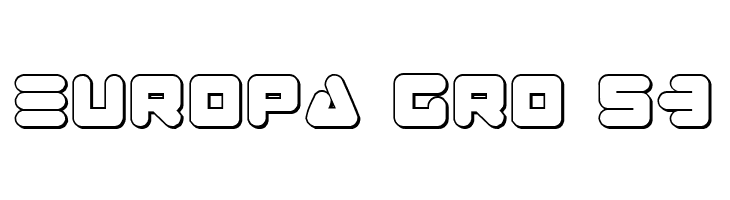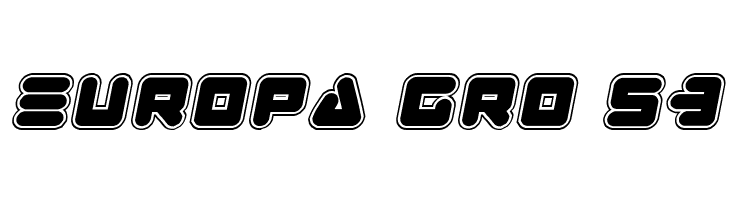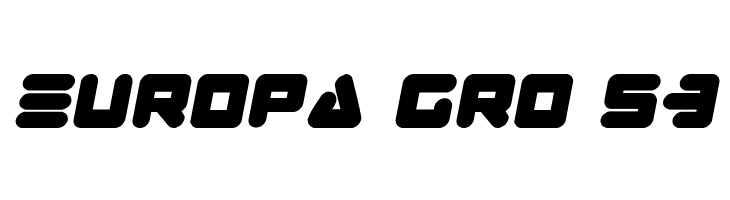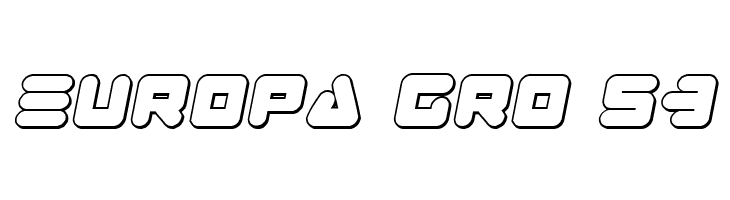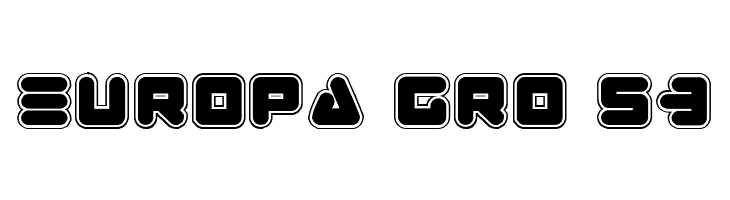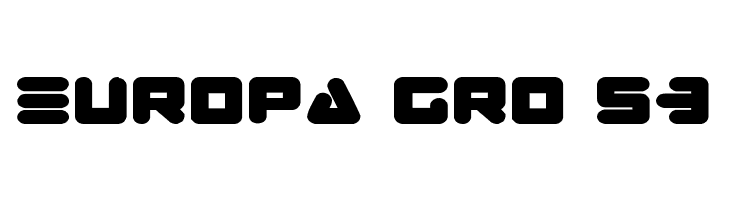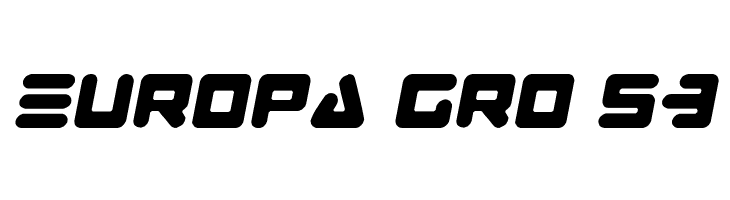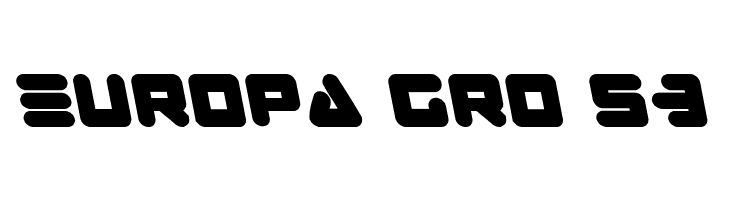
Zealot Font
Font by Daniel Zadorozny - www.iconian.com
A bold, futuristic font with geometric shapes and rounded edges.
Zealot Italic Font
Font by Daniel Zadorozny - www.iconian.com
A bold, rounded, and italicized font with a futuristic and dynamic style.
Zealot Light Font
Font by Daniel Zadorozny - www.iconian.com
A bold, futuristic font with geometric shapes and sharp angles.
Zealot College Italic Font
Font by Daniel Zadorozny - www.iconian.com
A bold, geometric font with a three-dimensional outlined style.
Zealot Expanded Font
Font by Daniel Zadorozny - www.iconian.com
A bold, geometric font with a futuristic and expanded design.
Zealot College Font
Font by Daniel Zadorozny - www.iconian.com
A bold, geometric font with a three-dimensional outline and rounded corners.
Zealot Light Italic Font
Font by Daniel Zadorozny - www.iconian.com
A bold, futuristic font with rounded edges and a slight italic slant.
Zealot Outline Font
Font by Daniel Zadorozny - www.iconian.com
A bold, geometric outline font with a futuristic and playful design.
Zealot Outline Italic Font
Font by Daniel Zadorozny - www.iconian.com
A bold, outlined, italic font with a modern, futuristic style.
Zealot Expanded Italic Font
Font by Daniel Zadorozny - www.iconian.com
A bold, expanded, and italicized font with a futuristic and geometric style.
Zealot Leftalic Font
Font by Daniel Zadorozny - www.iconian.com
A bold, futuristic font with geometric shapes and rounded edges.